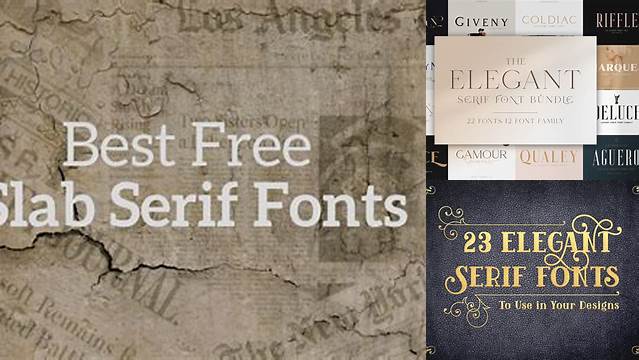
Elegant Serif Fonts: Generator & Usage Guide
Hey guys! Ever wondered how to add a touch of class and sophistication to your designs? Well, the secret often lies in using elegant serif fonts. These fonts, with their classic serifs (those little feet or strokes at the end of letters), can instantly elevate your projects. But where do you even start? Don't worry, we've got you covered. This guide will dive deep into the world of elegant serif fonts, exploring everything from what makes them special to how you can generate and use them effectively.
1. What are Elegant Serif Fonts?
So, what exactly are elegant serif fonts? Elegant serif fonts are characterized by their refined and graceful appearance. They typically feature thin strokes, high contrast between thick and thin lines, and delicate serifs. These fonts evoke a sense of tradition, sophistication, and trustworthiness. Think about the fonts you see in high-end magazines, classic literature, or luxury brand logos – chances are, many of them are elegant serifs. Elegant serif fonts are often associated with luxury brands, academic publications, and classic literature. The presence of serifs provides a sense of history and formality, making them ideal for conveying a sense of tradition and trustworthiness. Serif fonts are different from sans-serif fonts, which lack these extra strokes and tend to look more modern and minimalist.
2. The History of Serif Fonts
The history of serif fonts is a long and fascinating one, tracing back to ancient times. The earliest serifs can be seen in Roman inscriptions, where stonemasons added these small details to the ends of letters for a more polished look. This practice wasn't just aesthetic; it also helped to improve the legibility of the carved letters. Over centuries, serif fonts evolved and diversified, with different styles emerging during the Renaissance and the Industrial Revolution. Understanding the history of serif fonts can help you appreciate their timeless appeal and how they've influenced modern typography. For example, fonts like Times New Roman and Garamond have roots stretching back hundreds of years, yet they remain popular choices today. This rich history contributes to the sense of elegance and authority associated with serif fonts.
3. Key Characteristics of Elegant Serif Fonts
What makes a serif font elegant? It's not just about the serifs themselves, but also other subtle characteristics. Key traits include thin strokes, a high contrast between thick and thin lines, and refined letterforms. The overall design tends to be graceful and balanced, creating a visually pleasing effect. Elegant serif fonts often have a taller x-height, which refers to the height of lowercase letters, making them easier to read. The spacing between letters is also carefully considered to ensure optimal legibility and visual harmony. These details contribute to the font's overall sophistication and make it suitable for a range of applications where a touch of elegance is desired.
4. Popular Examples of Elegant Serif Fonts
Okay, let's get into some specific examples! There are tons of amazing elegant serif fonts out there, each with its own unique personality. Some popular choices include Times New Roman, Garamond, Baskerville, Caslon, and Didot. Times New Roman is a classic, known for its readability and versatility. Garamond exudes warmth and sophistication, making it ideal for body text. Baskerville is a transitional serif with a clean and balanced appearance. Caslon is another versatile option, often used in book printing. And Didot, with its high contrast and refined lines, is a favorite for fashion magazines and luxury branding. Exploring these popular examples of elegant serif fonts will help you understand the nuances of different styles and find the perfect one for your project.
5. How to Use Elegant Serif Fonts Effectively
Knowing which fonts are elegant is one thing, but knowing how to use them effectively is another! Using elegant serif fonts effectively means considering the context and purpose of your design. These fonts are generally well-suited for headlines, body text, and logos, but it's important to choose the right font for each application. For example, a heavier serif might work well for headlines, while a lighter, more readable serif is better for body text. Consider the overall tone and message you want to convey. An elegant serif can add a touch of formality and sophistication, but it can also feel stuffy if used inappropriately. Balance is key!
6. Elegant Serif Fonts for Headlines
For headlines, you often want a font that grabs attention and makes a statement. Elegant serif fonts for headlines can do just that, but it's crucial to choose one that's both eye-catching and legible. Think about using a font with a bolder weight or a more distinctive character. Didot, with its strong vertical strokes and thin hairlines, is a great choice for headlines. Baskerville, with its classic and refined appearance, is another excellent option. Remember to consider the overall design and ensure that the headline font complements the body text font. The goal is to create a visual hierarchy that guides the reader's eye and makes your message clear.
7. Elegant Serif Fonts for Body Text
When it comes to body text, readability is paramount. Elegant serif fonts for body text should be easy on the eyes, even when reading large blocks of text. Garamond and Caslon are both excellent choices for body text, thanks to their classic proportions and high legibility. Times New Roman is another reliable option, although it can sometimes feel a bit overused. Look for fonts with a generous x-height and consistent letter spacing. Avoid fonts with overly decorative serifs or extreme contrast, as these can be distracting and make the text harder to read. The key is to find a font that's both elegant and functional.
8. Elegant Serif Fonts for Logos
Logos are all about making a lasting impression, and elegant serif fonts for logos can help you create a brand identity that exudes sophistication and trustworthiness. Many luxury brands use serif fonts in their logos to convey a sense of heritage and quality. Think about brands like Chanel, Gucci, and Tiffany & Co. When choosing a serif font for a logo, consider the brand's personality and target audience. A more traditional brand might opt for a classic serif like Caslon or Baskerville, while a modern brand might choose a more contemporary serif with a unique twist. The font should be legible at various sizes and work well in both print and digital formats.
9. Pairing Elegant Serif Fonts with Other Fonts
Font pairing is an art, and pairing elegant serif fonts with other fonts can be tricky but rewarding. The goal is to create a visual contrast that's pleasing to the eye. A common approach is to pair a serif font with a sans-serif font. For example, you might use a serif for headlines and a sans-serif for body text, or vice versa. When choosing fonts, consider their weight, style, and overall tone. A classic serif like Garamond pairs well with a clean sans-serif like Helvetica or Arial. A more modern serif like Didot might work well with a geometric sans-serif like Futura. Experiment and see what combinations you like best, but always prioritize readability and visual harmony.
10. The Psychology of Serif Fonts
Did you know that fonts can evoke different emotions and associations? The psychology of serif fonts suggests that they tend to convey a sense of tradition, authority, and trustworthiness. This is why they're often used in formal settings, such as academic publications, legal documents, and financial reports. Serif fonts can also evoke a sense of elegance and sophistication, making them ideal for luxury branding and high-end design. Understanding the psychological impact of fonts can help you make more informed choices and create designs that resonate with your target audience. If you want to project stability, reliability, and refinement, an elegant serif font is an excellent choice.
11. Modern Elegant Serif Fonts
While classic serif fonts have a timeless appeal, there are also plenty of modern elegant serif fonts that offer a fresh and contemporary look. These fonts often incorporate subtle design elements that set them apart from traditional serifs, such as sharper serifs, unique letterforms, or a more geometric structure. Fonts like Playfair Display and Lora are popular examples of modern serifs that strike a balance between elegance and modernity. These fonts are versatile and can be used in a variety of applications, from websites and blogs to branding materials and print designs. If you're looking for a serif font that feels both sophisticated and current, exploring modern options is a great idea.
12. Classic Elegant Serif Fonts
On the other end of the spectrum, classic elegant serif fonts have stood the test of time and continue to be popular choices for a reason. These fonts, like Times New Roman, Garamond, and Baskerville, have a timeless appeal that transcends trends. They're characterized by their balanced proportions, high readability, and refined letterforms. Classic serifs are often associated with tradition, authority, and sophistication. They're ideal for applications where you want to convey a sense of history and trustworthiness. Whether you're designing a book, a website, or a logo, a classic serif font can add a touch of timeless elegance to your project.
13. Where to Find Elegant Serif Fonts
So, where can you actually find these elegant serif fonts? There are tons of resources available, both free and paid. Google Fonts is a great place to start, offering a wide selection of high-quality serif fonts that you can use for free in your projects. Websites like MyFonts, Adobe Fonts, and Fontspring offer a vast library of commercial fonts, with options for every style and budget. You can also find free fonts on websites like DaFont and Fontspace, but be sure to check the licensing terms before using them in commercial projects. Exploring different font foundries and marketplaces will help you discover hidden gems and find the perfect elegant serif font for your needs.
14. Free Elegant Serif Fonts
Speaking of free fonts, there are some amazing free elegant serif fonts out there! Google Fonts is a treasure trove of free serifs, including popular options like Libre Baskerville, Merriweather, and Crimson Text. These fonts are not only free to use but also professionally designed and highly legible. Other websites like Font Squirrel and Unsplash offer free font collections, but always double-check the licensing terms to ensure they're suitable for your project. Using free fonts can be a great way to save money, especially when you're just starting out or working on a personal project. Just remember to choose fonts that are well-designed and meet your specific needs.
15. Paid Elegant Serif Fonts
While free fonts are great, paid elegant serif fonts often offer a higher level of quality, versatility, and unique design. Commercial font foundries invest significant time and resources in creating typefaces that are both beautiful and functional. Paid fonts often come with a wider range of weights, styles, and language support, giving you more flexibility in your designs. Websites like MyFonts, Adobe Fonts, and Fontspring offer a vast selection of commercial fonts, ranging from classic serifs to modern interpretations. Investing in a well-designed paid font can elevate your projects and give you a competitive edge. If you're working on a professional project or branding, consider the value of using a high-quality paid font.
16. Elegant Serif Font Generators: Are They Worth It?
You might have come across elegant serif font generators online. These tools claim to create custom fonts, but are they really worth it? The truth is, most font generators produce low-quality results that aren't suitable for professional use. Designing a typeface is a complex process that requires expertise and attention to detail. Font generators often lack the nuances and refinements of professionally designed fonts. While they might be fun for experimentation, it's best to stick with established fonts from reputable sources for serious projects. The time and effort saved by using a font generator may not be worth the compromise in quality and legibility.
17. The Limitations of Font Generators
Expanding on the previous point, it's important to understand the limitations of font generators. These tools often rely on algorithms and templates, which can result in generic and uninspired designs. They may not account for the subtle variations in letterforms that make a typeface unique and legible. Additionally, font generators often lack advanced features like kerning (the spacing between letters) and hinting (instructions for rendering fonts on different screens), which can significantly impact the final appearance of the text. If you're serious about typography, it's best to learn the basics of font design or work with a professional type designer. Relying on font generators can limit your creativity and result in subpar results.
18. Alternatives to Font Generators
So, if font generators aren't the best option, what are the alternatives to font generators? The most straightforward alternative is to use existing fonts from reputable sources. As mentioned earlier, Google Fonts, MyFonts, and Adobe Fonts offer a vast library of high-quality typefaces. Another option is to customize existing fonts using font editing software like FontLab Studio or Glyphs. This allows you to create unique variations without starting from scratch. If you need a completely custom typeface, consider hiring a professional type designer. A skilled type designer can create a font that perfectly matches your brand's personality and needs. While this option is more expensive, it can result in a truly unique and professional result.
19. Elegant Serif Fonts for Web Design
Elegant serif fonts for web design can add a touch of sophistication to your website, but it's important to choose fonts that are legible on screens. Not all serif fonts render well on the web, especially at smaller sizes. Look for fonts that are specifically designed for web use, with clear letterforms and consistent rendering across different browsers and devices. Google Fonts is a great resource for web-friendly serif fonts, offering options like Playfair Display, Merriweather, and Lora. Consider the overall design of your website and choose a font that complements the rest of your elements. A well-chosen serif font can enhance the user experience and make your website look more polished and professional.
20. Elegant Serif Fonts for Print Design
For elegant serif fonts for print design, you have a bit more flexibility than with web design. Print design allows for finer details and higher resolutions, so you can use more delicate and intricate serifs. Classic serifs like Garamond, Baskerville, and Caslon are excellent choices for print applications. Consider the type of print project you're working on and choose a font that's appropriate for the content. A formal invitation might call for a more ornate serif, while a business card might benefit from a cleaner and more professional-looking serif. Always proofread your designs carefully to ensure that the text is legible and error-free.
21. How to Identify Elegant Serif Fonts
Ever wondered how to identify elegant serif fonts? It's a skill that can come in handy when you're browsing websites, reading books, or designing your own projects. The key is to look for the distinguishing features of serif fonts: the serifs themselves. These are the small strokes or feet that extend from the main strokes of the letters. Beyond the serifs, consider the font's overall proportions, stroke contrast, and letterforms. A font identification tool like WhatTheFont or Font Identifier can be helpful if you're unsure. By practicing your font identification skills, you'll develop a better understanding of typography and be able to make more informed font choices.
22. The Future of Elegant Serif Fonts
What does the future hold for elegant serif fonts? While trends in typography come and go, serif fonts have proven their staying power. They continue to be a popular choice for both print and digital design, thanks to their timeless appeal and versatility. We can expect to see new interpretations of classic serifs, as well as innovative designs that push the boundaries of traditional typography. Variable fonts, which allow for greater flexibility and customization, may also play a role in the future of serif fonts. No matter what the future holds, the elegance and sophistication of serif fonts will likely endure.
23. Elegant Serif Fonts and Branding
Elegant serif fonts and branding go hand in hand, especially for brands that want to convey a sense of luxury, tradition, or trustworthiness. Serif fonts can add a touch of class and sophistication to a logo, website, or marketing materials. Many high-end brands, such as Chanel, Gucci, and Tiffany & Co., use serif fonts in their branding to create a strong visual identity. When choosing a serif font for your brand, consider your target audience, brand personality, and overall message. A classic serif might be a good choice for a traditional brand, while a modern serif might be better suited for a more contemporary brand. The key is to choose a font that accurately reflects your brand's values and resonates with your audience.
24. Elegant Serif Fonts and Readability
Elegant serif fonts and readability are closely linked, especially when it comes to body text. Serif fonts are often considered more readable than sans-serif fonts for long blocks of text, thanks to the serifs that help guide the eye across the page. However, not all serif fonts are equally readable. Fonts with overly decorative serifs or extreme contrast can be tiring to read. When choosing a serif font for body text, prioritize legibility and choose a font with a generous x-height, consistent letter spacing, and clear letterforms. A well-chosen serif font can enhance the reading experience and make your content more engaging.
25. Creating a Mood with Elegant Serif Fonts
Fonts have the power to evoke emotions and create a specific mood. Creating a mood with elegant serif fonts is all about understanding the psychological impact of different typefaces. Serif fonts tend to convey a sense of tradition, authority, and sophistication. They can also evoke feelings of warmth, elegance, and refinement. By carefully selecting a serif font, you can enhance the overall tone and message of your design. A classic serif might create a sense of timelessness and elegance, while a modern serif might evoke a feeling of contemporary sophistication. Consider the emotions you want to evoke and choose a font that aligns with your vision.
26. The Importance of Kerning in Elegant Serif Fonts
Kerning, the adjustment of spacing between individual letters, is crucial for achieving optimal legibility and visual harmony in typography. The importance of kerning in elegant serif fonts cannot be overstated. Because serif fonts often have intricate letterforms and delicate serifs, proper kerning is essential to prevent letters from colliding or appearing too far apart. Poor kerning can make text look cluttered and difficult to read, while good kerning enhances readability and creates a more polished appearance. When working with serif fonts, pay close attention to kerning and make adjustments as needed to ensure that the text looks balanced and well-spaced.
27. The Role of Leading in Elegant Serif Fonts
Leading, the vertical spacing between lines of text, is another important factor in typography. The role of leading in elegant serif fonts is to ensure that the text is easy to read and visually appealing. Too little leading can make lines of text feel cramped and difficult to follow, while too much leading can create a sense of disconnection between the lines. The optimal leading depends on the font size, line length, and the overall design of the page. Generally, serif fonts benefit from slightly more leading than sans-serif fonts. Experiment with different leading values to find the sweet spot that enhances readability and creates a pleasing visual rhythm.
28. Elegant Serif Fonts and Accessibility
Elegant serif fonts and accessibility are important considerations, especially when designing for the web. It's crucial to choose fonts that are legible for people with visual impairments. This means avoiding fonts with overly decorative serifs, extreme contrast, or narrow letterforms. A font with a generous x-height, consistent letter spacing, and clear letterforms will be more accessible to a wider audience. Consider using a font size that's large enough to be easily read and ensure that there's sufficient contrast between the text and the background. By prioritizing accessibility, you can create designs that are inclusive and user-friendly.
29. Trends in Elegant Serif Fonts
While classic serif fonts remain popular, there are also some interesting trends in elegant serif fonts to watch out for. One trend is the rise of variable fonts, which allow for greater flexibility and customization. Variable fonts can be adjusted in weight, width, and other parameters, giving designers more control over the appearance of their text. Another trend is the use of more experimental and unconventional serifs, such as those with sharper angles or more dramatic shapes. These fonts can add a unique and contemporary touch to designs. By staying up-to-date with the latest trends, you can keep your typography fresh and engaging.
30. Mastering Elegant Serif Fonts: A Conclusion
So, there you have it! A deep dive into the world of elegant serif fonts. Mastering elegant serif fonts is an ongoing process, but by understanding their history, characteristics, and best practices for usage, you can create designs that are both beautiful and effective. Remember to consider the context, purpose, and audience when choosing a font, and always prioritize readability and visual harmony. Experiment with different fonts, pairings, and layouts to discover what works best for your projects. With practice and attention to detail, you'll be able to harness the power of elegant serif fonts to elevate your designs and communicate your message with sophistication and style.